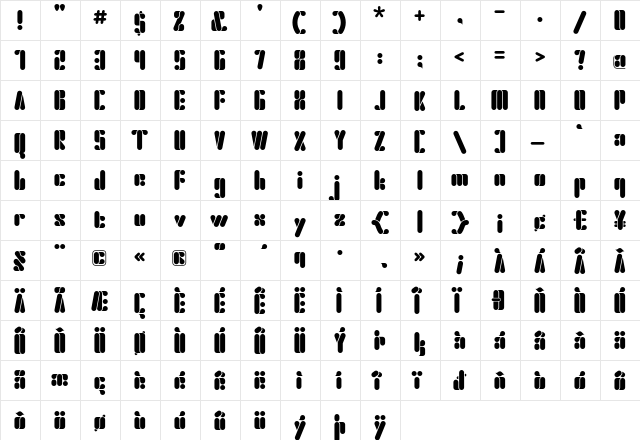
Elsuave Regular
| Foundry | Michael Parson / Typogama |
| Designer | Michael Parson |
Design Context for Elsuave Typeface
Elsuave is a composed and adaptable typeface that performs quietly and consistently across a wide range of design contexts.